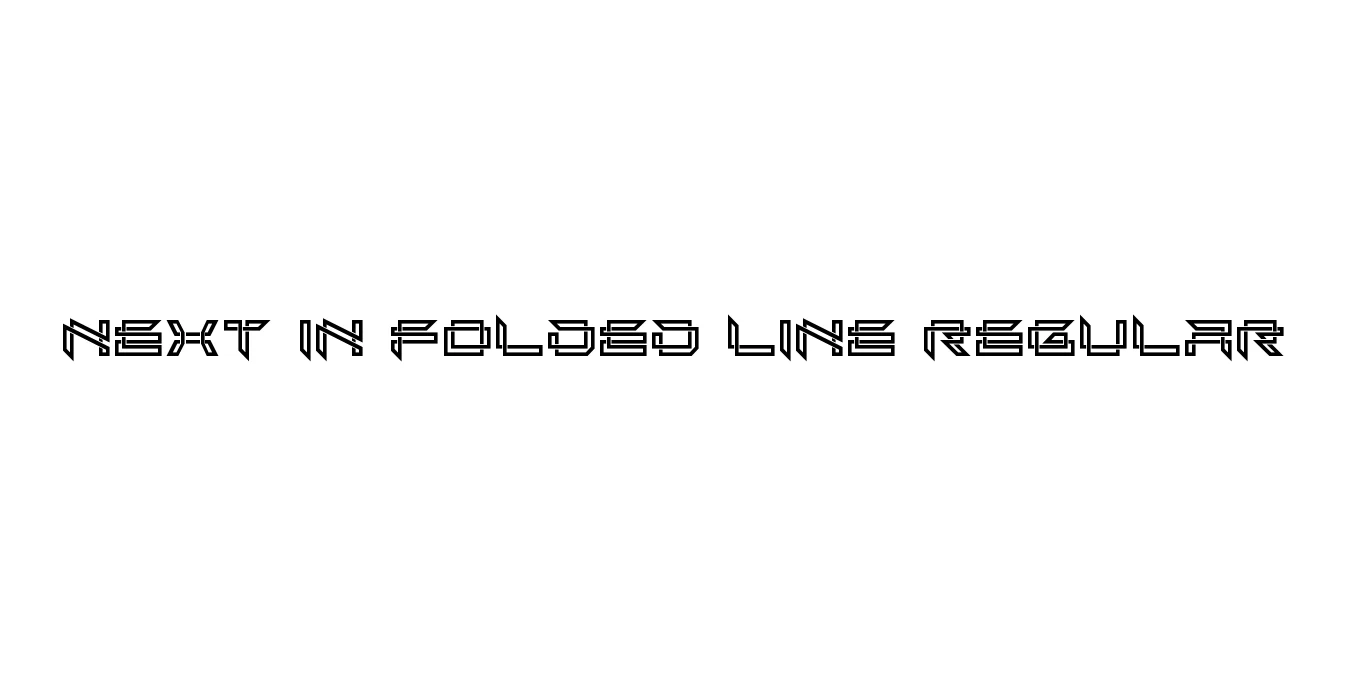
Next In Folded Line Regular
Designed by Gatis Vilaks
Next In Folded Line Regular is a sophisticated geometric typeface that utilizes a unique visual language based on linear folding. The design philosophy centers on the illusion of continuous lines bending in space, creating a 3D architectural effect within a 2-dimensional plane. This font stands out for its structural precision and rhythmic balance, making it a favorite among designers looking for a technical yet artistic aesthetic.
The typeface is part of the broader Next In Line family, focusing specifically on the folded-ribbon look that evokes a sense of modernism and digital craftsmanship. It is particularly effective when used in large formats where the intricate details of the line-work and the clean intersections can be fully appreciated by the viewer, bridging the gap between minimalism and complex construction.
Next In Folded Line Regular Best Uses
Ideal for tech startup logos and modern corporate identities that require a sense of structure.
Highly effective for minimalist event posters and avant-garde art exhibitions.
Used to create striking, high-impact titles for creative portfolios and landing pages.
The clean, technical lines translate well into physical spatial design and wayfinding.
Perfect for high-fashion magazines or technical journals seeking a contemporary look.